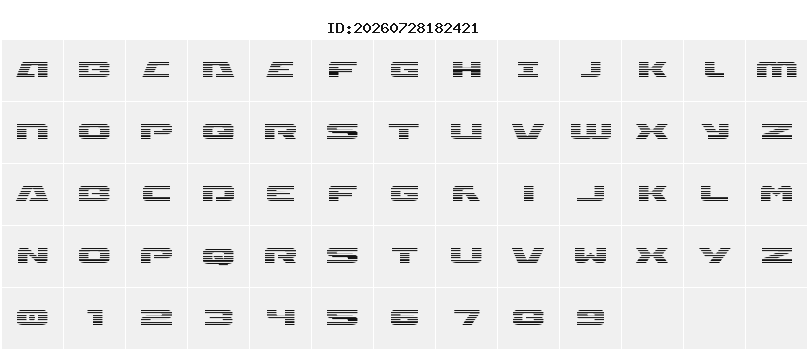
• Font Name: Iapetus Gradient
About Iapetus Gradient.ttf
Iapetus Gradient.ttf is a modern, elegant sans-serif font designed for ultimate readability and visual harmony. Perfect for branding, headlines, web design, and print materials.